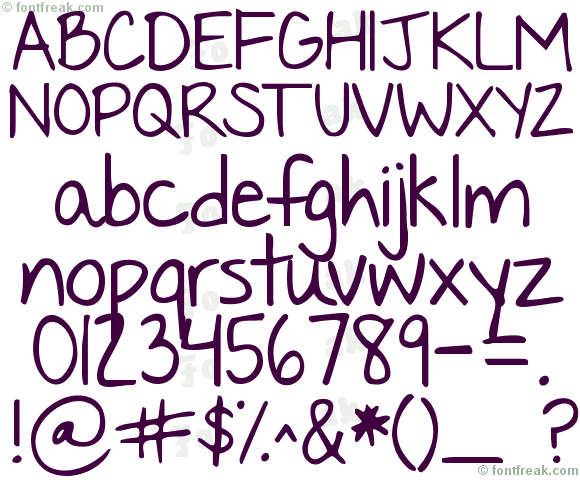
Nothing You Could Say
About Nothing You Could Say
The "Nothing You Could Say" font by Kimberly Geswein is a charming handwritten typeface that exudes a casual yet artistic flair. As a script font, it captures the essence of personal touch, making it ideal for projects that require a friendly and approachable aesthetic. The strokes are fluid and playful, featuring a medium weight that balances visibility with a sense of warmth. The spacing is well-considered, allowing for readability while maintaining that handwritten charm, and the letters have a slight irregularity that adds to its organic feel.
This font is particularly well-suited for a variety of creative applications. It shines in wedding invitations, where its whimsical style can add a romantic touch. Additionally, it works wonderfully for greeting cards, as the personal nature of the font conveys heartfelt messages beautifully. Other great use cases include branding for small cafes or boutiques, where a unique and inviting logo can set the tone for a delightful customer experience. Content creators can also utilize this font in social media graphics, lending a human element to online posts that resonate with audiences.
What sets the "Nothing You Could Say" font apart is its ability to evoke a sense of familiarity and warmth, making it an exceptional choice for anyone seeking to create a connection with their audience. With its delightful style and practical applications, you can enjoy a "Nothing You Could Say font free download" that elevates your designs.